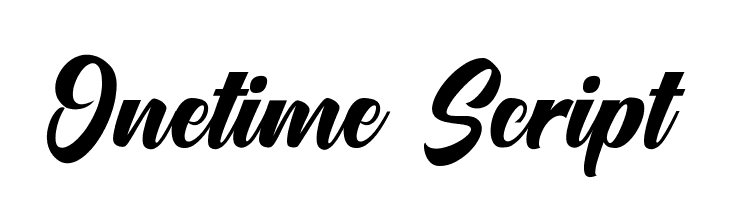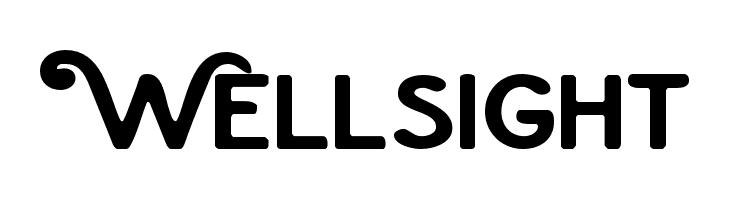
( Lettersiro Studio - Muhammad Sirojuddin - creativemarket.com/Lettersiro )
A bold, flowing script font with interconnected letters and a dynamic style.
( Lettersiro Studio - Muhammad Sirojuddin - creativemarket.com/Lettersiro )
A bold, playful script font with smooth curves and exaggerated serifs.
( Lettersiro Studio - Muhammad Sirojuddin - creativemarket.com/Lettersiro )
A bold, handwritten font with dynamic strokes and a playful, artistic style.
( Lettersiro Studio - Muhammad Sirojuddin - creativemarket.com/Lettersiro )
A sophisticated script font with flowing, cursive letterforms and elegant flourishes.
( Lettersiro Studio - Muhammad Sirojuddin - creativemarket.com/Lettersiro )
An elegant script font with flowing, cursive letterforms and intricate flourishes.
( Lettersiro Studio - Muhammad Sirojuddin - creativemarket.com/Lettersiro )
A bold, cursive font with smooth, connected lines and a handwritten feel.
( Lettersiro Studio - Muhammad Sirojuddin - creativemarket.com/Lettersiro )
A versatile font with decorative and bold sans-serif styles.
( Lettersiro Studio - Muhammad Sirojuddin - creativemarket.com/Lettersiro )
A bold, textured font with a playful, hand-drawn style.
( Muhammad Ridha Agusni )
A bold, gothic-style blackletter font with intricate detailing and sharp, angular lines.
( Muhammad Romzul Khoir )
A bold, modern font with geometric influences and clean lines.